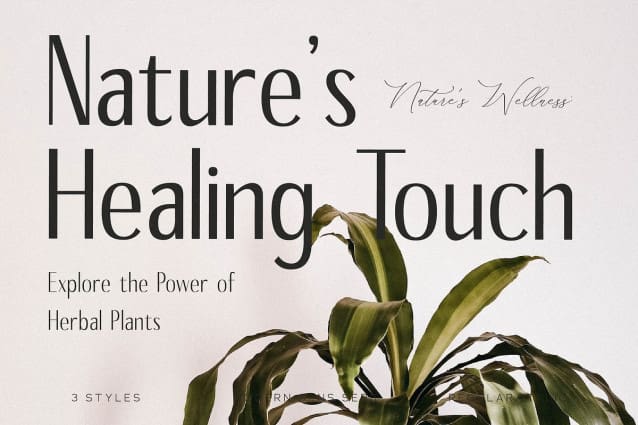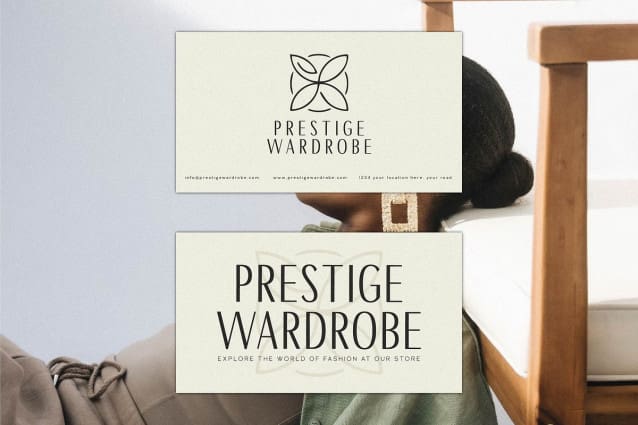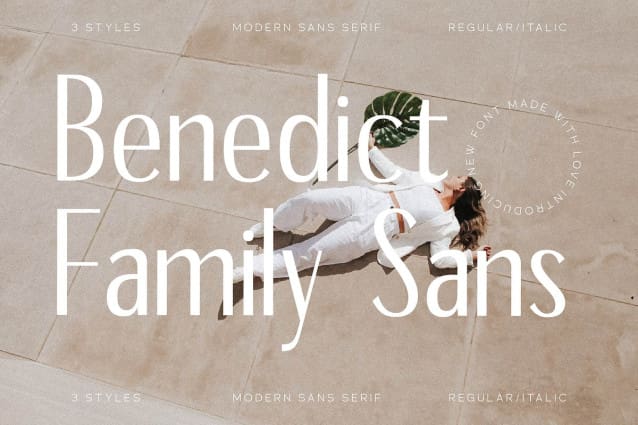
Benedict Sans Font
Benedict Sans Font, created by Storytype, A serif modern and classic typeface that has own unique style & modern look. This typeface is perfect for an elegant & luxury logo, book or movie title design, fashion brand, magazine, clothes, lettering, quotes, and so much more.